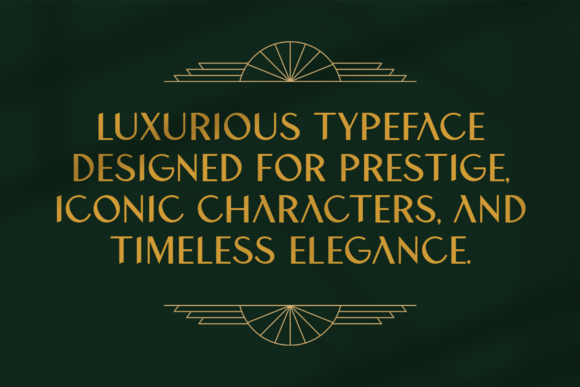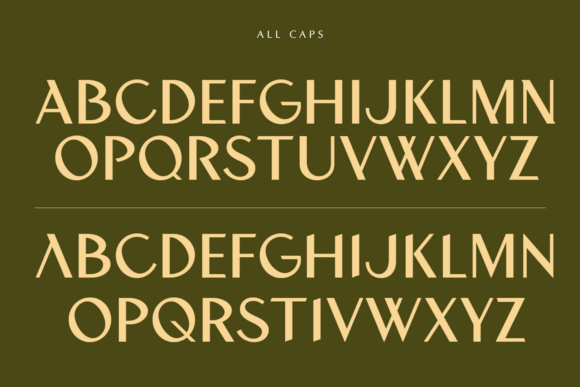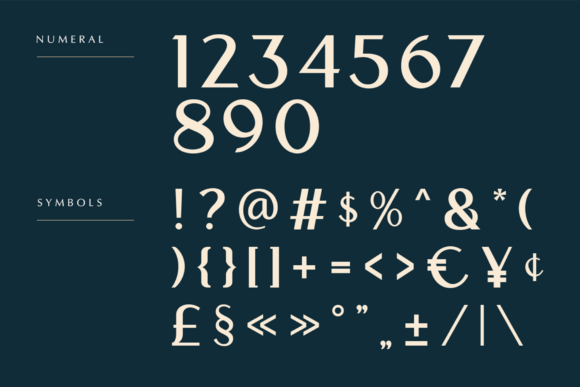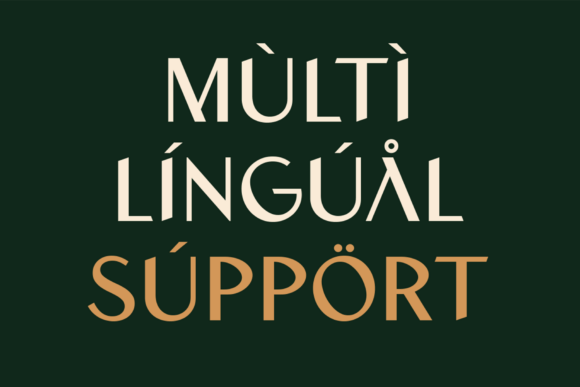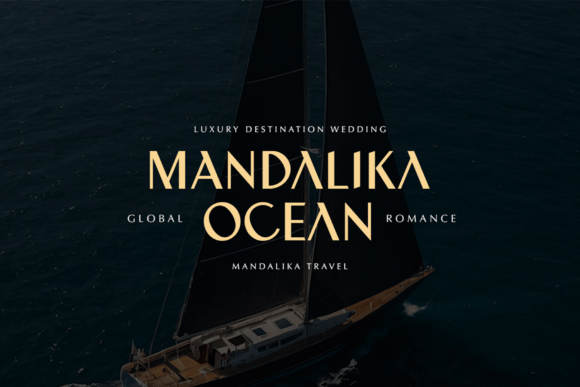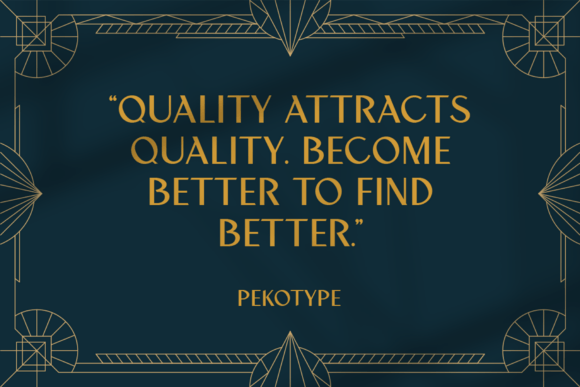
Introduction to Savore Font
Imagine you’re working on a high-end design project, and you’re looking for a font that exudes luxury and sophistication. You want something that will make your logo, packaging, or branding stand out from the crowd, something that will give your creative project a touch of elegance and refinement. This is where the Savore Font comes in – a modern luxury display font inspired by the glamour of Art Deco.
With its clean, geometric letterforms and subtle decorative touches, the Savore Font is perfect for designers who want to add a high-quality, premium feel to their work. Its strong visual presence and timeless elegance make it an ideal choice for luxury branding, fashion labels, hotels, and more. Whether you’re working on a wedding design, product label, or social media content, the Savore Font is sure to make a lasting impression.
As a valuable design resource, the Savore Font offers a range of features, including all caps, numbers, symbols, and multilingual support, making it easy to use and customize for a variety of high-end design projects. And with its transparent background, you can easily integrate it into your design without any distractions. Plus, it’s available for free download, making it a must-have for any serious designer looking to elevate their creative project to the next level.
Key Features of Savore Font
- High-quality, elegant design perfect for creative projects and designs.
- Features a transparent background, allowing for seamless integration with any design or background.
- Comes in a range of sizes, from 16px to 128px, making it suitable for various design applications.
- Unique characteristics include a modern, minimalist aesthetic and a wide range of style options, making it an ideal choice for creative projects.
Honest Review: Savore Font
I recently stumbled upon the Savore Font, and I must say it’s a great addition to any designer’s toolkit. This free download has become a valuable design resource for me, and I’m excited to share my thoughts on it.
- Transparent background makes it easy to overlay on images
- Stylish and elegant font that’s perfect for headings and titles
Overall, I’m impressed with the Savore Font. It’s a great free download that’s perfect for designers looking for a high-quality, stylish font. While it may not be perfect, it’s definitely a valuable design resource that I’ll be using in my future projects.
Tips for Getting the Most Out of Savore Font
To get the most out of the Savore Font, use it on a transparent background to create a clean and modern design. Experiment with different font sizes and colors to add visual interest to your project.
The Savore Font is perfect for a variety of creative projects, including logos, brochures, and business cards. Its high-quality design makes it an ideal choice for any design resource.